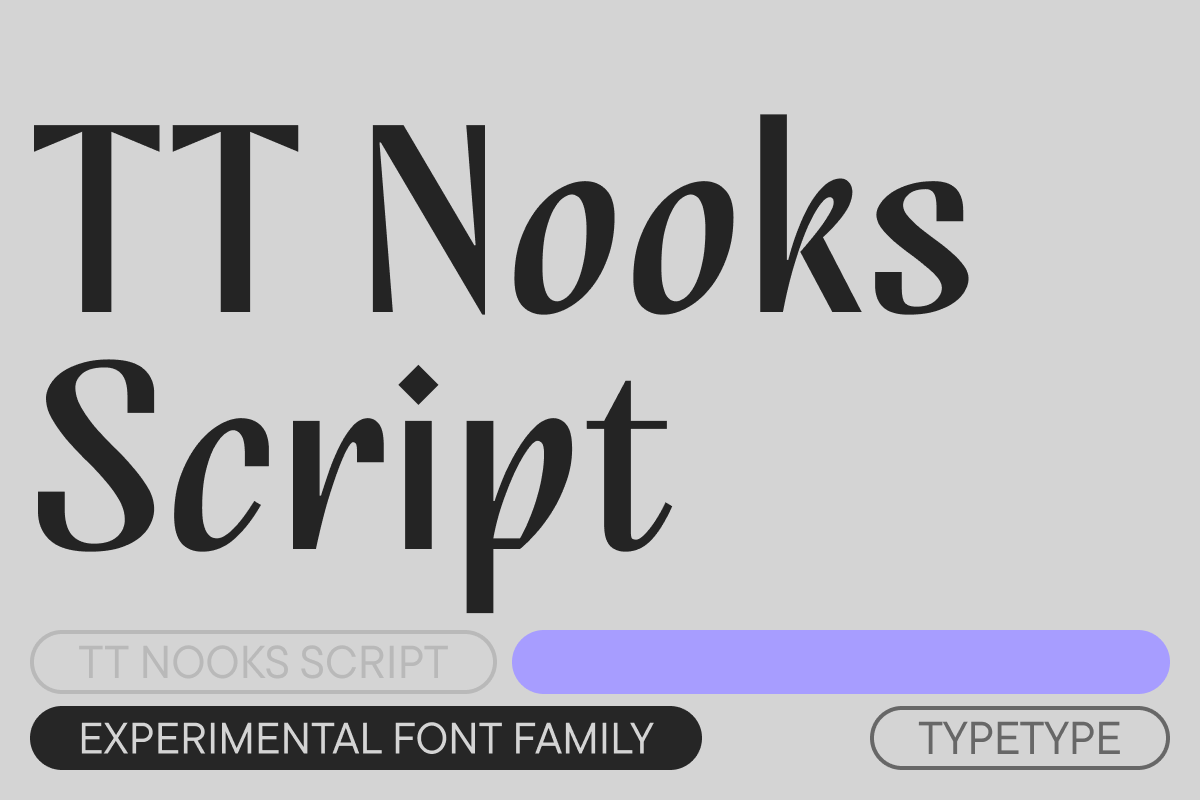
TT Nooks Script Light
TT Nooks is an experimental font family that includes a high contrast serif, TT Nooks, and an upright italic, TT Nooks Script. Despite the difference in style, both subfamilies get along well, which is partially thanks to their similar proportions. In light faces, TT Nooks Script is more humanist and has artifacts inherent to the continuous movement of a flat pen. In bold faces, TT Nooks Script has a very dense and dynamic typing rhythm, and the shape of the letters begins to geometrize.